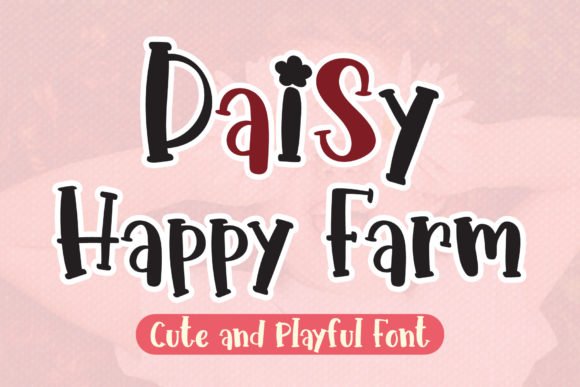
Introduction to Daisy Happy Farm Font
Daisy Happy Farm is a cute and friendly serif font.
Playful and a little bit quirky, this font is the perfect fit for all of your logos, branding, posters, and crafty DIY projects .
Key Features of Daisy Happy Farm Font
Why Choose Daisy Happy Farm Font?